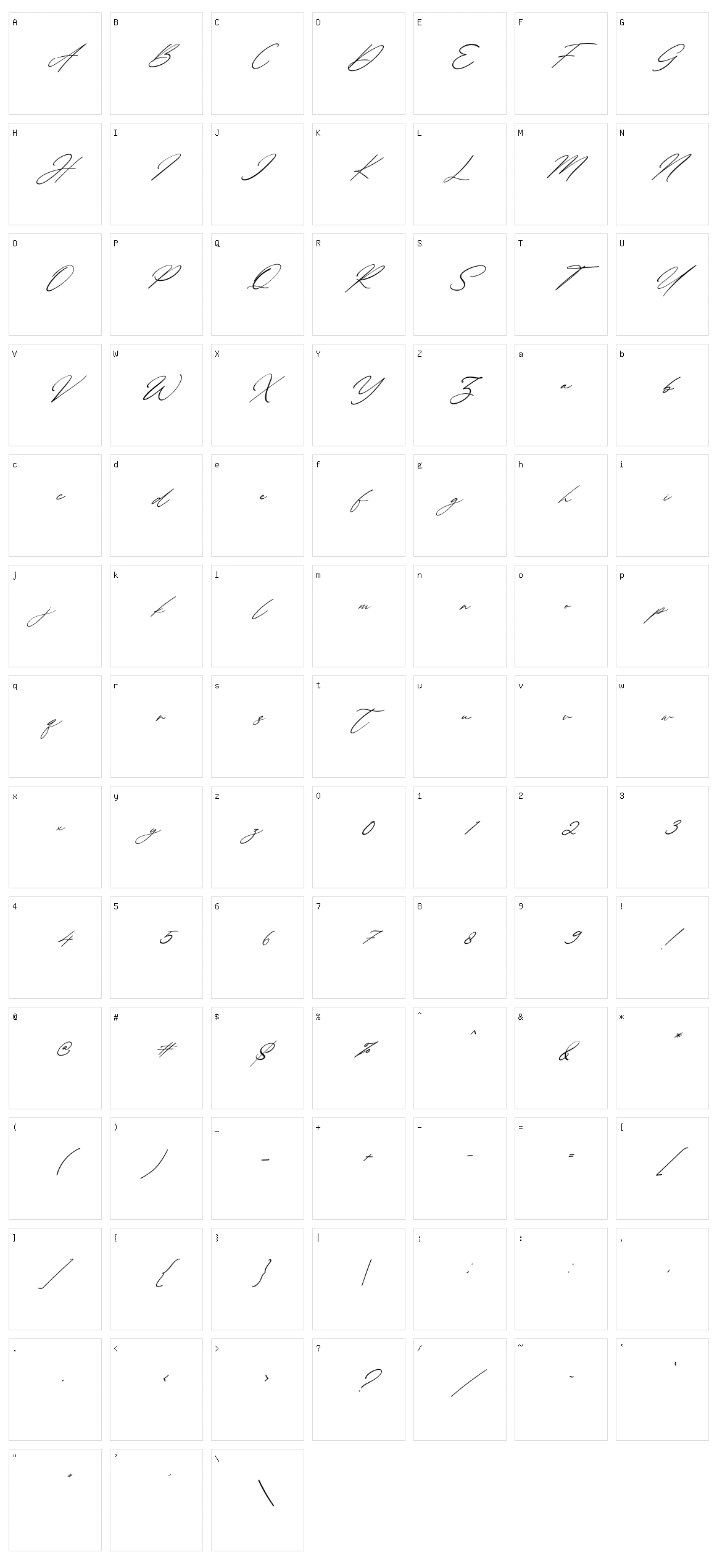
The free font Margharita is carefully designed by Kong Font, showcasing a thoughtful balance of creativity and usability and falls under the Script font style. When you download the ZIP file, it contains only 279.39 KB of font files, making it lightweight and quick to download. Please review the license details below to understand permitted usage and distribution rights. If license information is not available, we recommend using this font for personal projects only or contacting the author directly for commercial usage permissions.